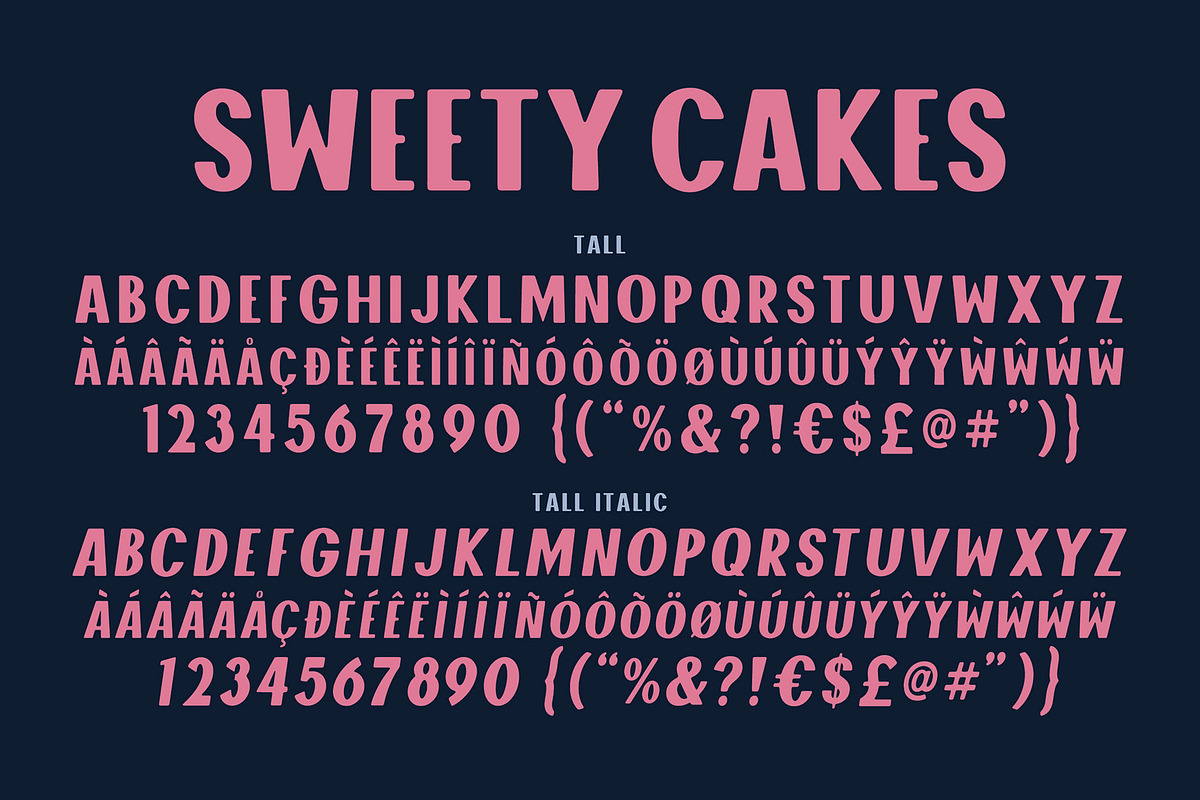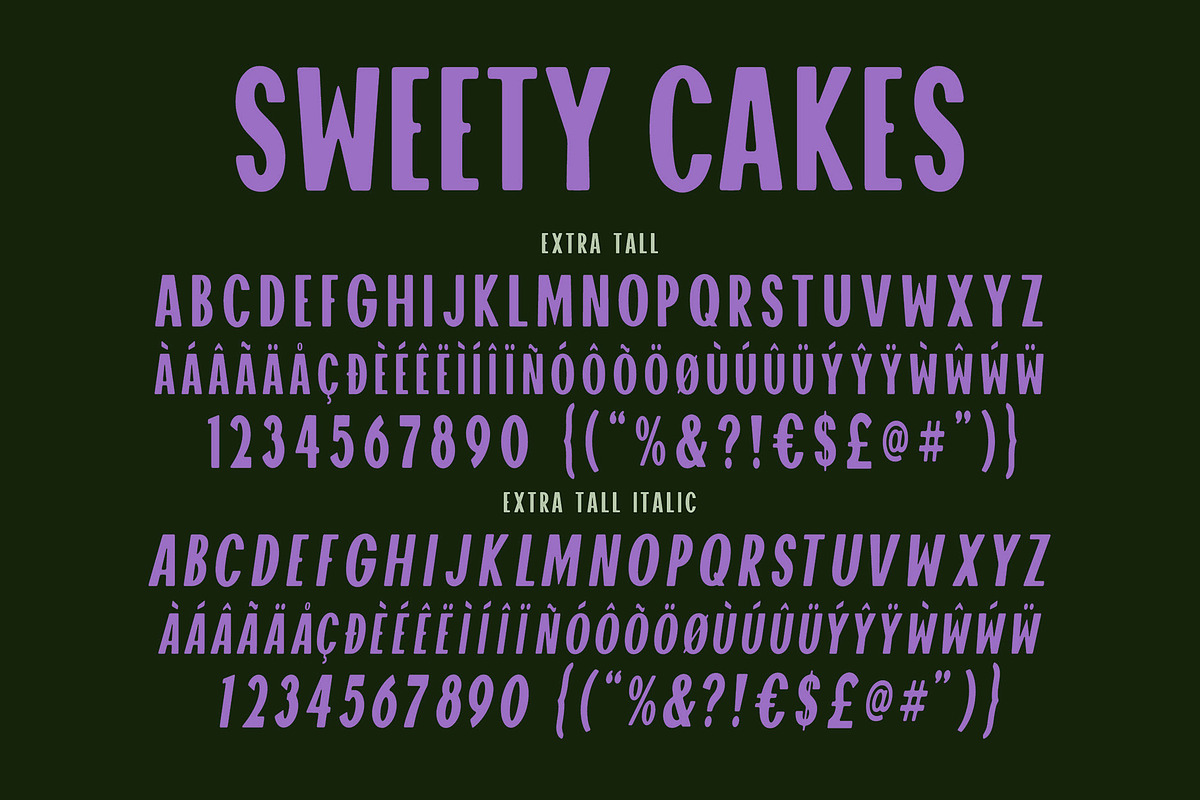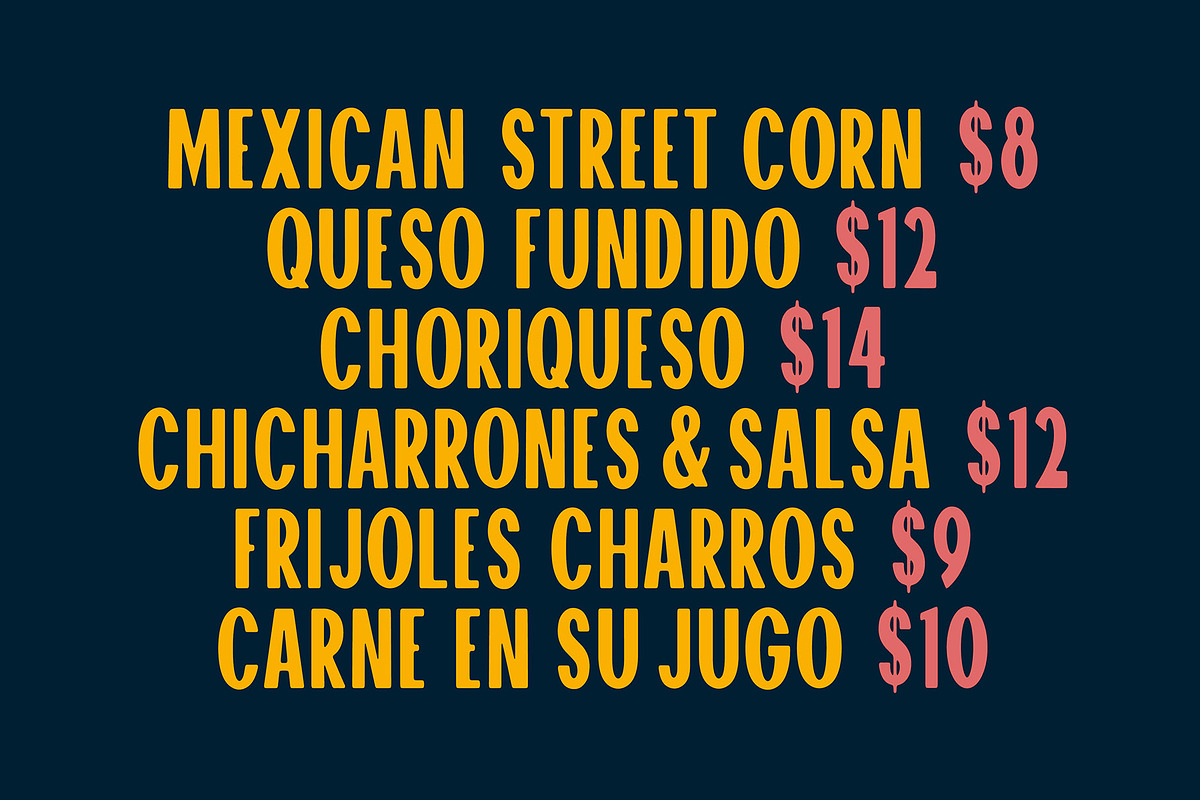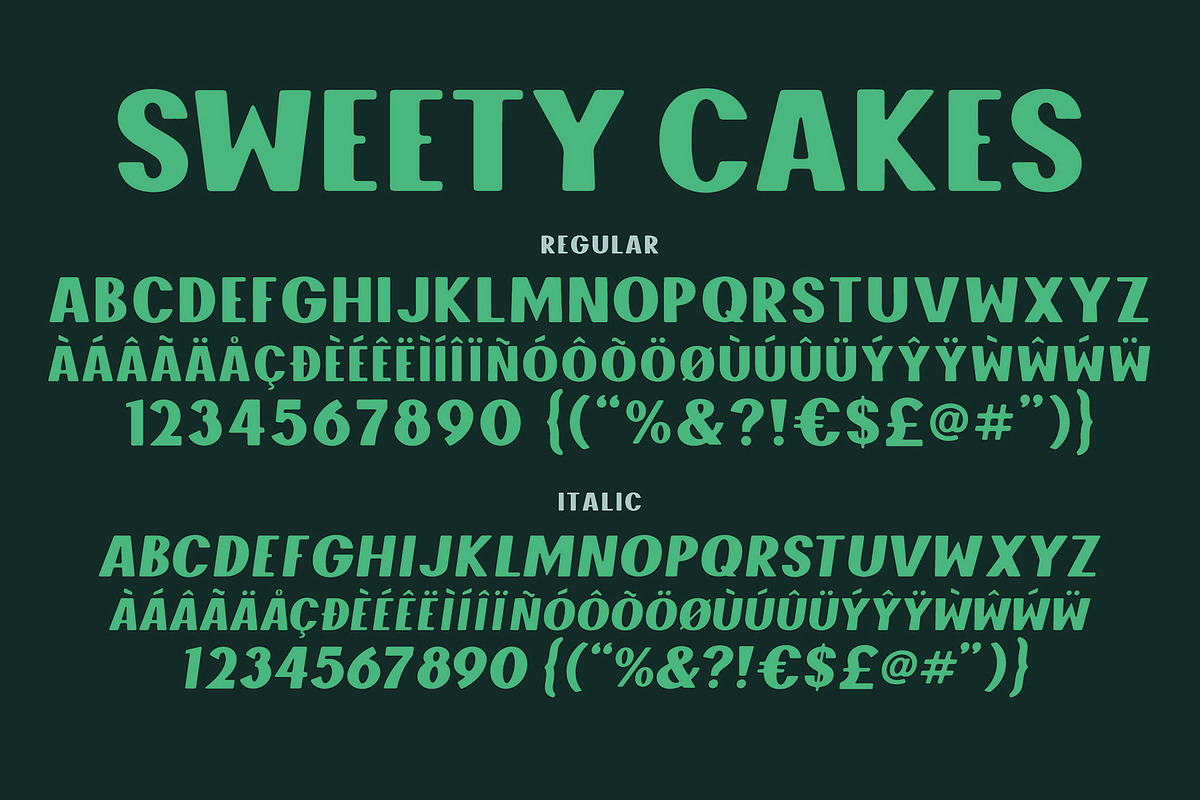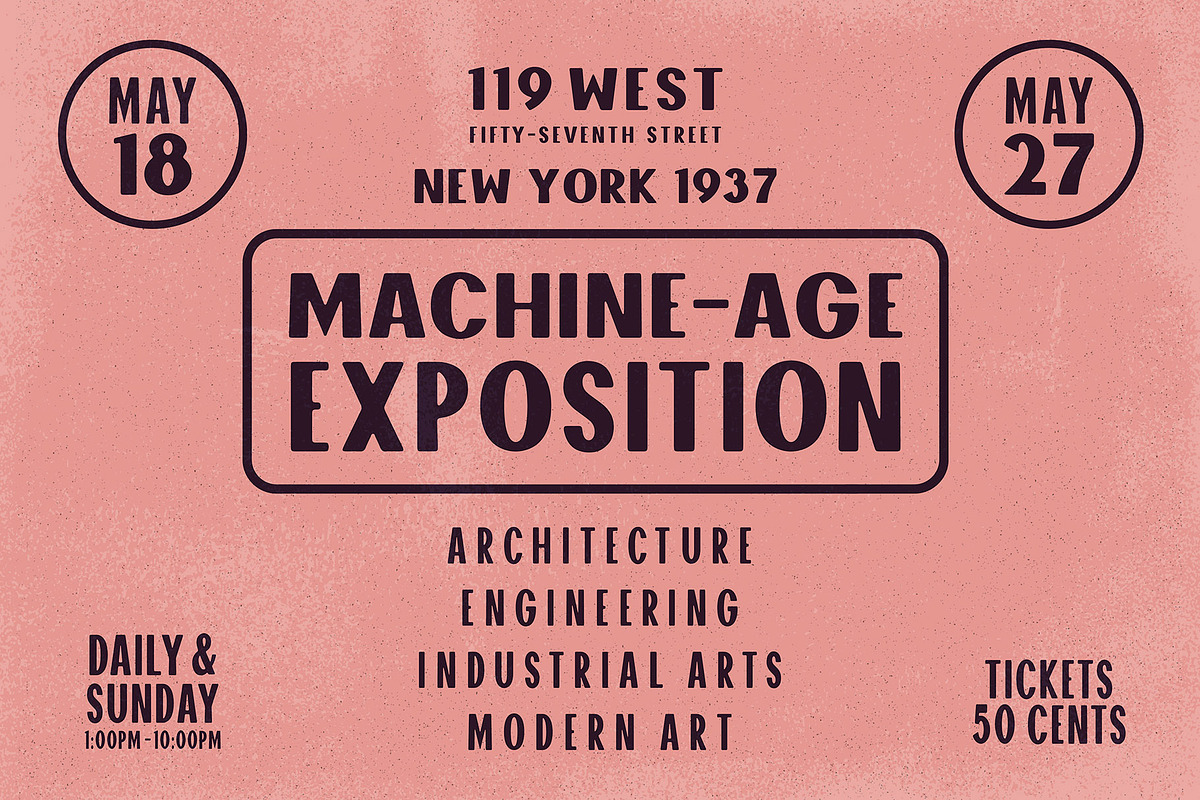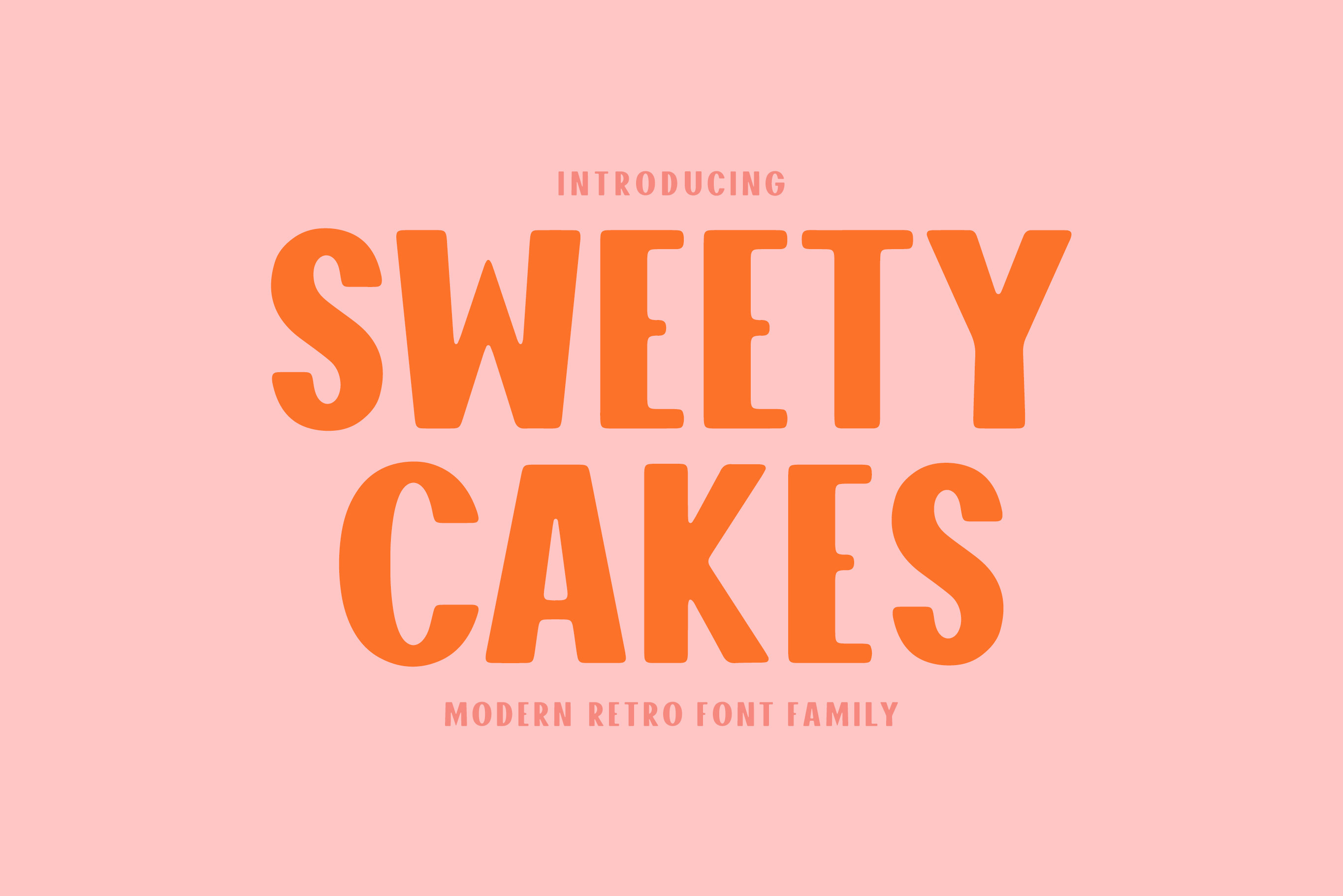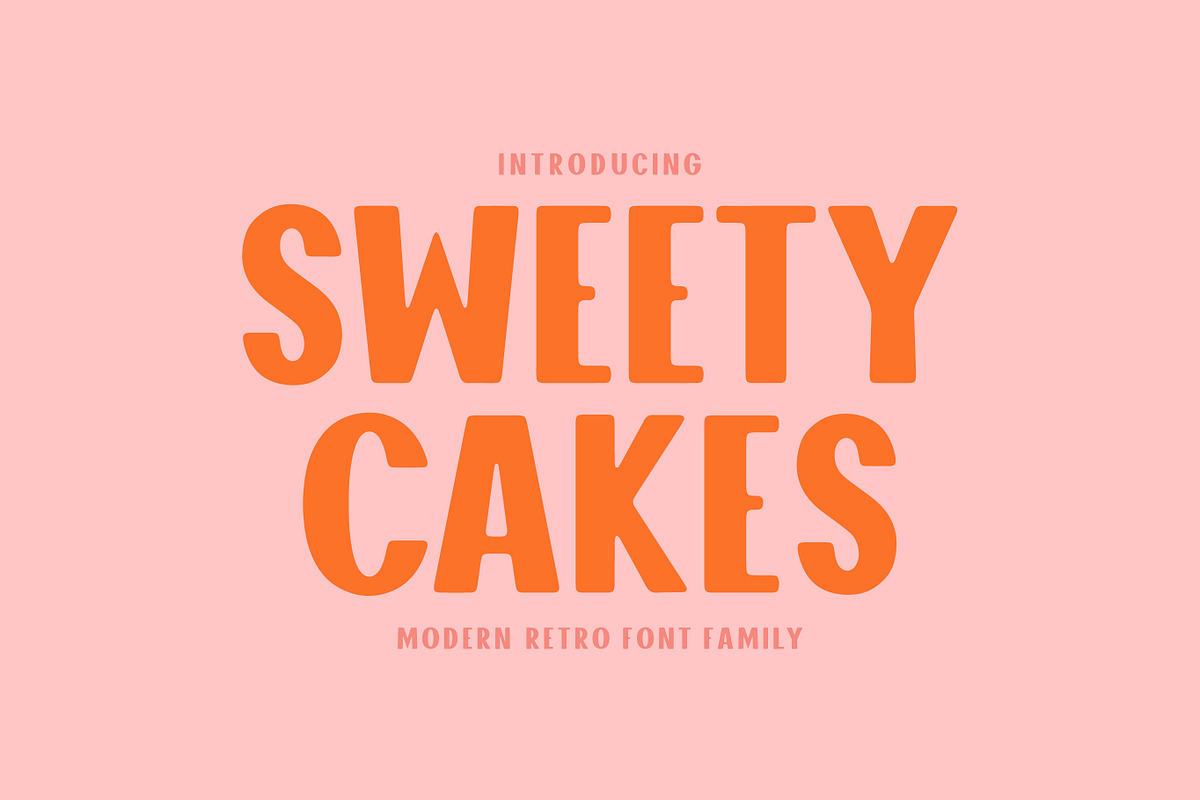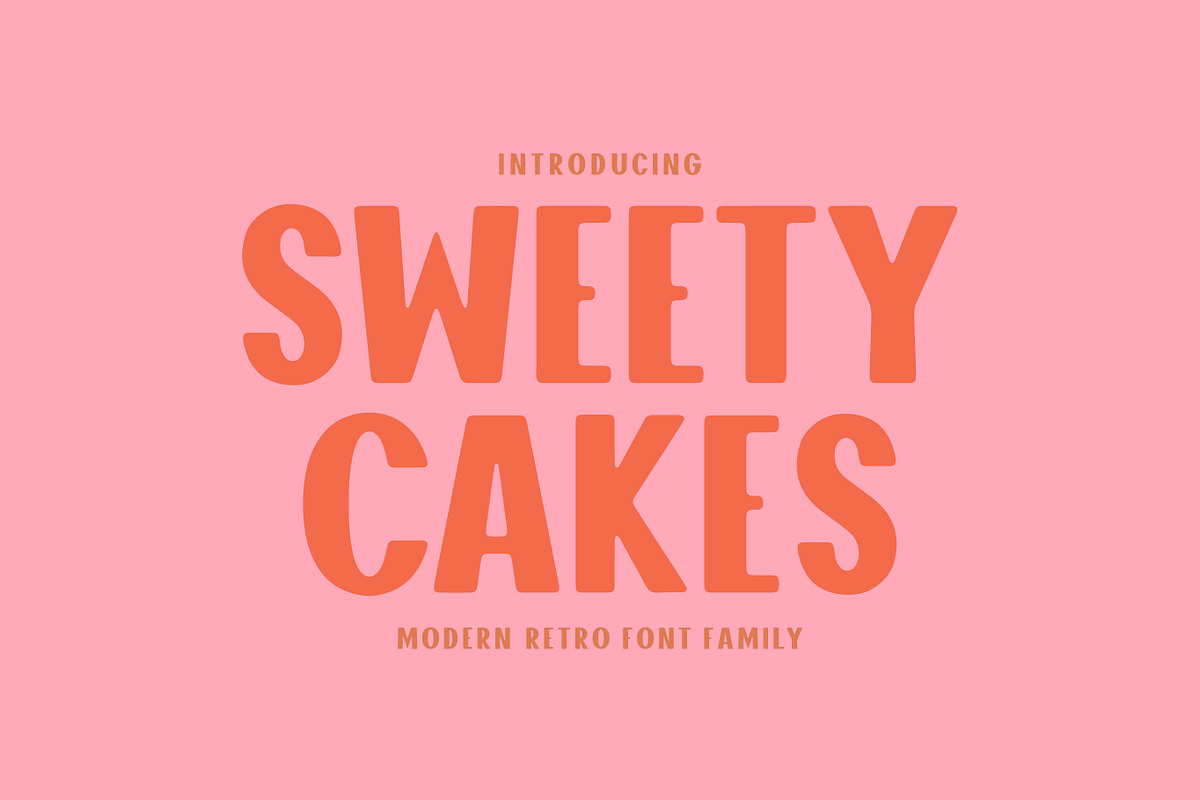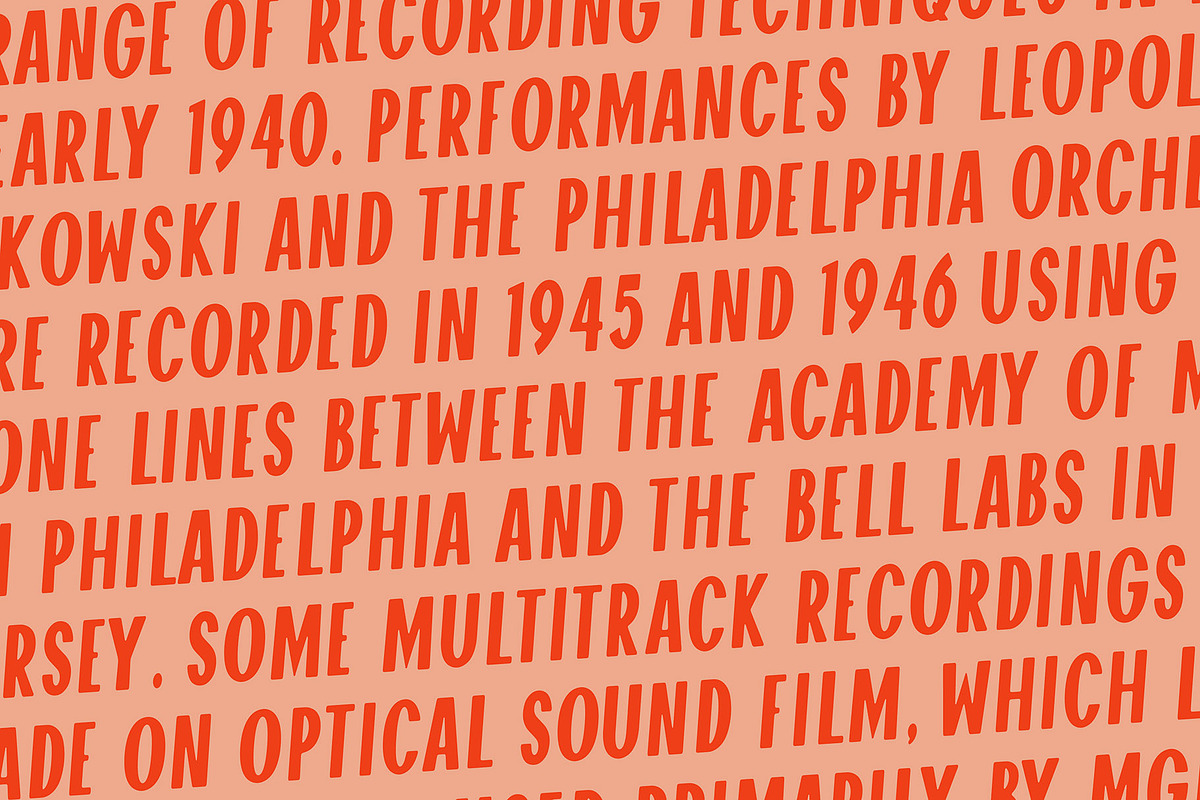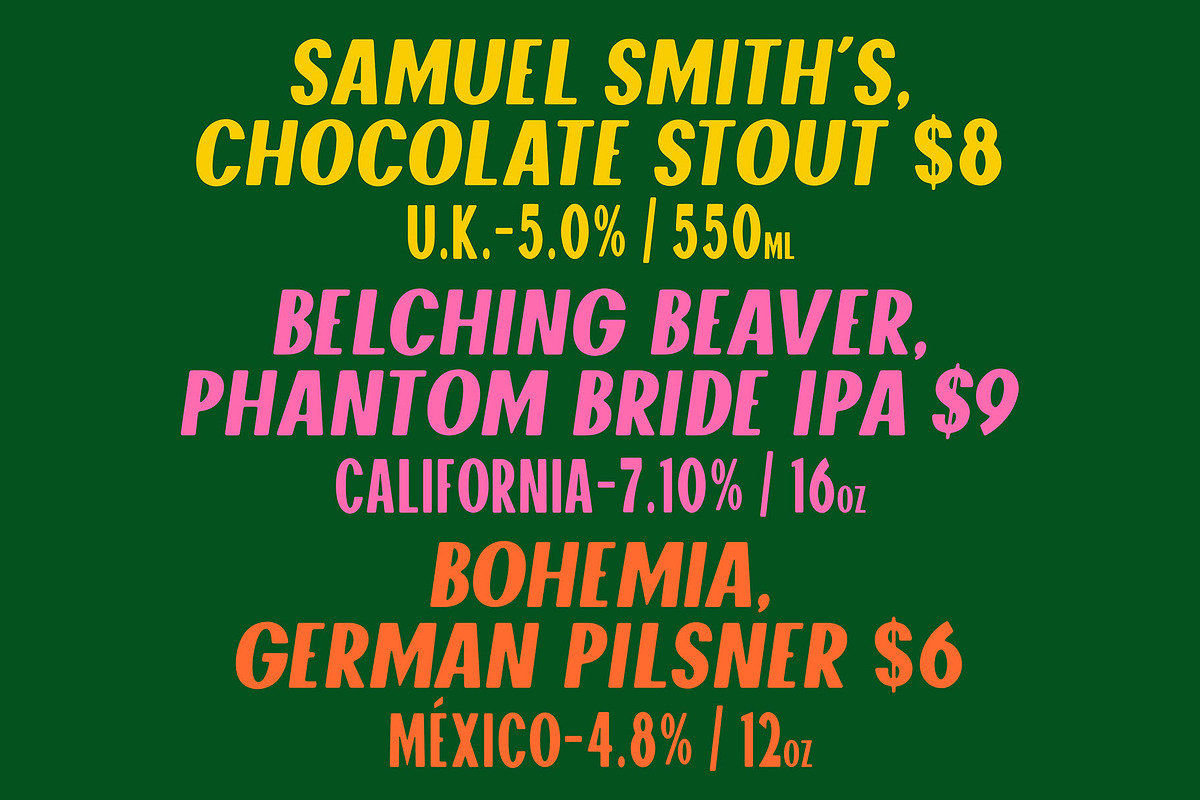
Sweety Cakes Font Family
Sweety Cakes is a versatile display font package. This font set includes 6 fonts.
(Regular, Italic, Tall, Tall Italic, Extra Tall, Extra Tall Italic.) This set would be perfect for menus, posters, book covers, apparel so much more...